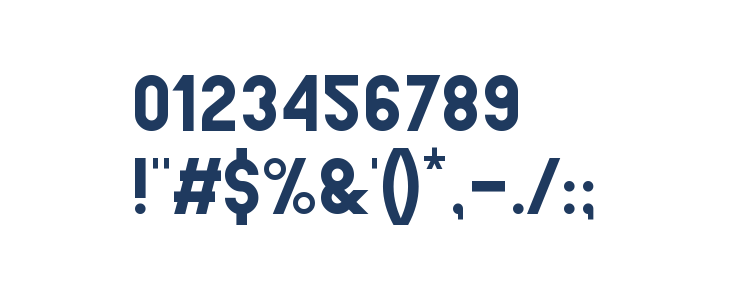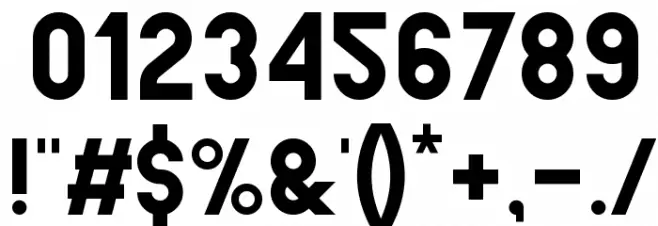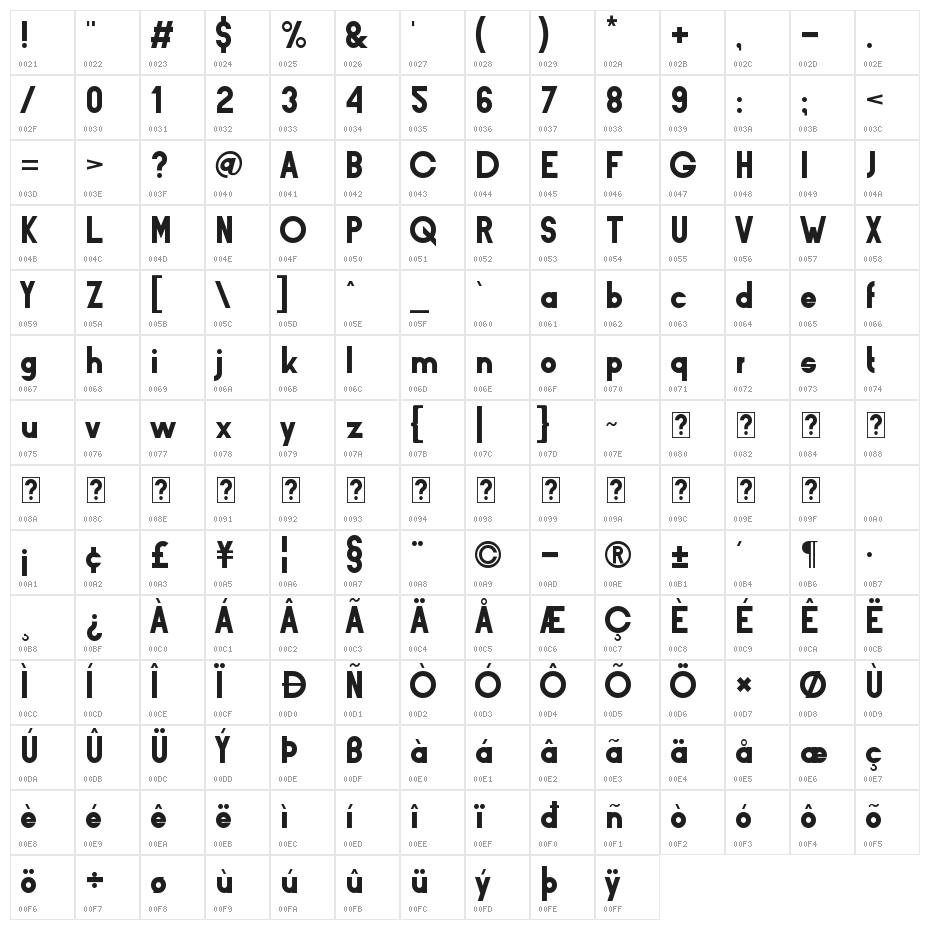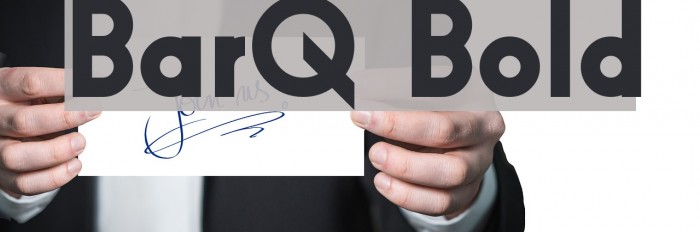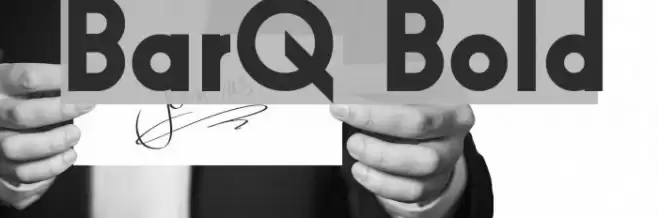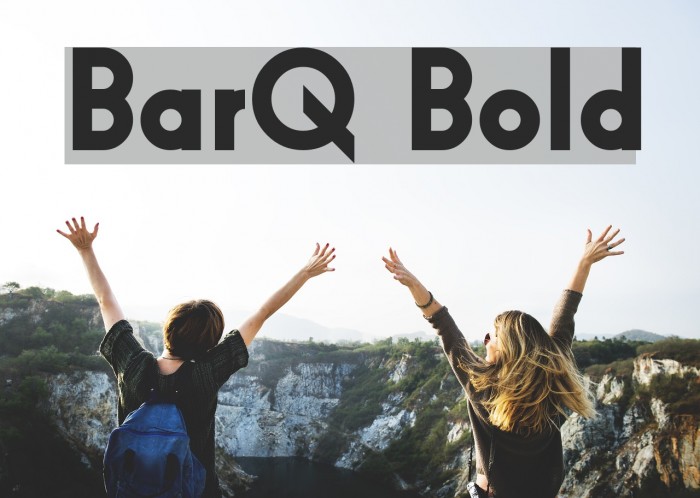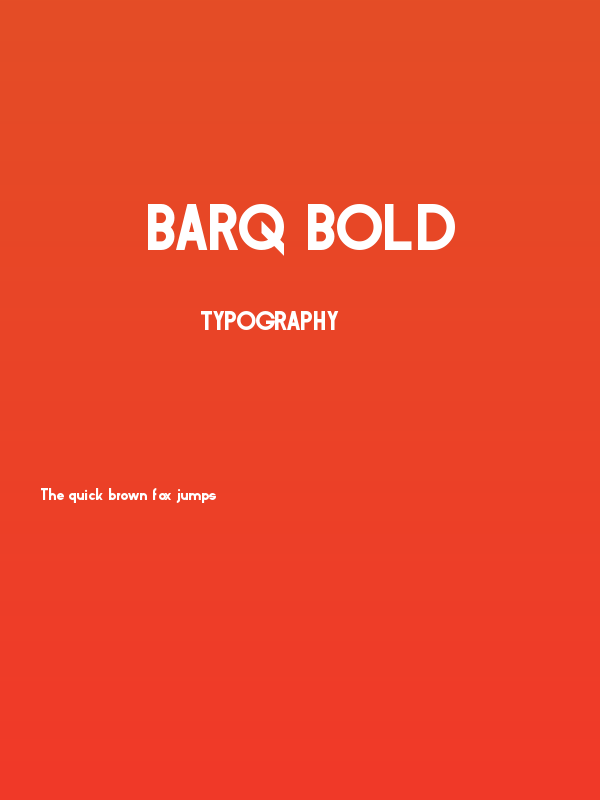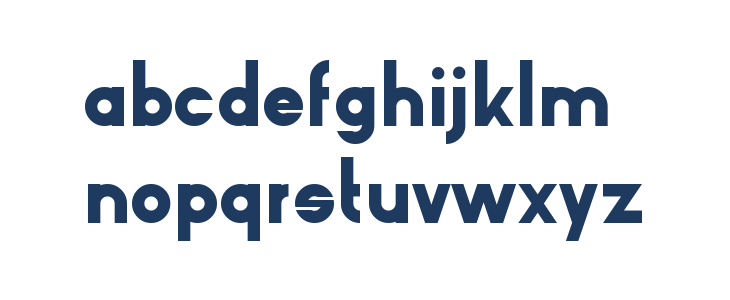
BarQ Bold Font
BarQ Bold Description
This font features bold, geometric letterforms with a strong presence. The uppercase and lowercase letters are well-balanced, with consistent stroke widths that give it a modern and clean appearance. The numbers and special characters maintain the same boldness, ensuring uniformity across all characters. The design is straightforward, with minimal decorative elements, making it highly legible and versatile for various applications. The font's boldness and clarity make it suitable for impactful designs where readability is crucial.